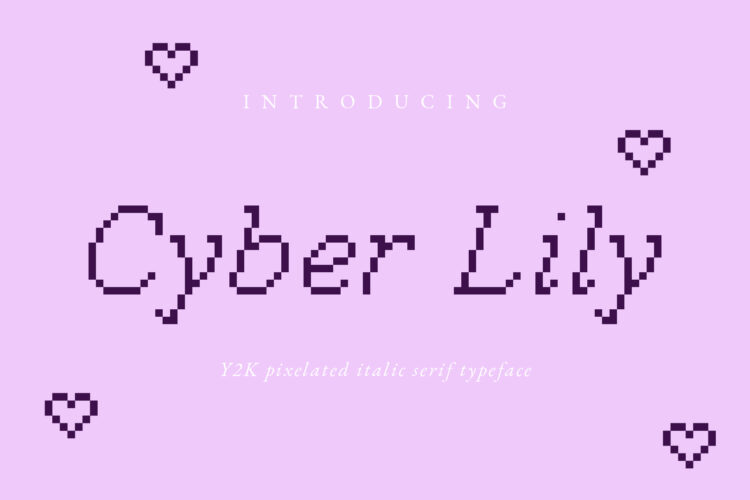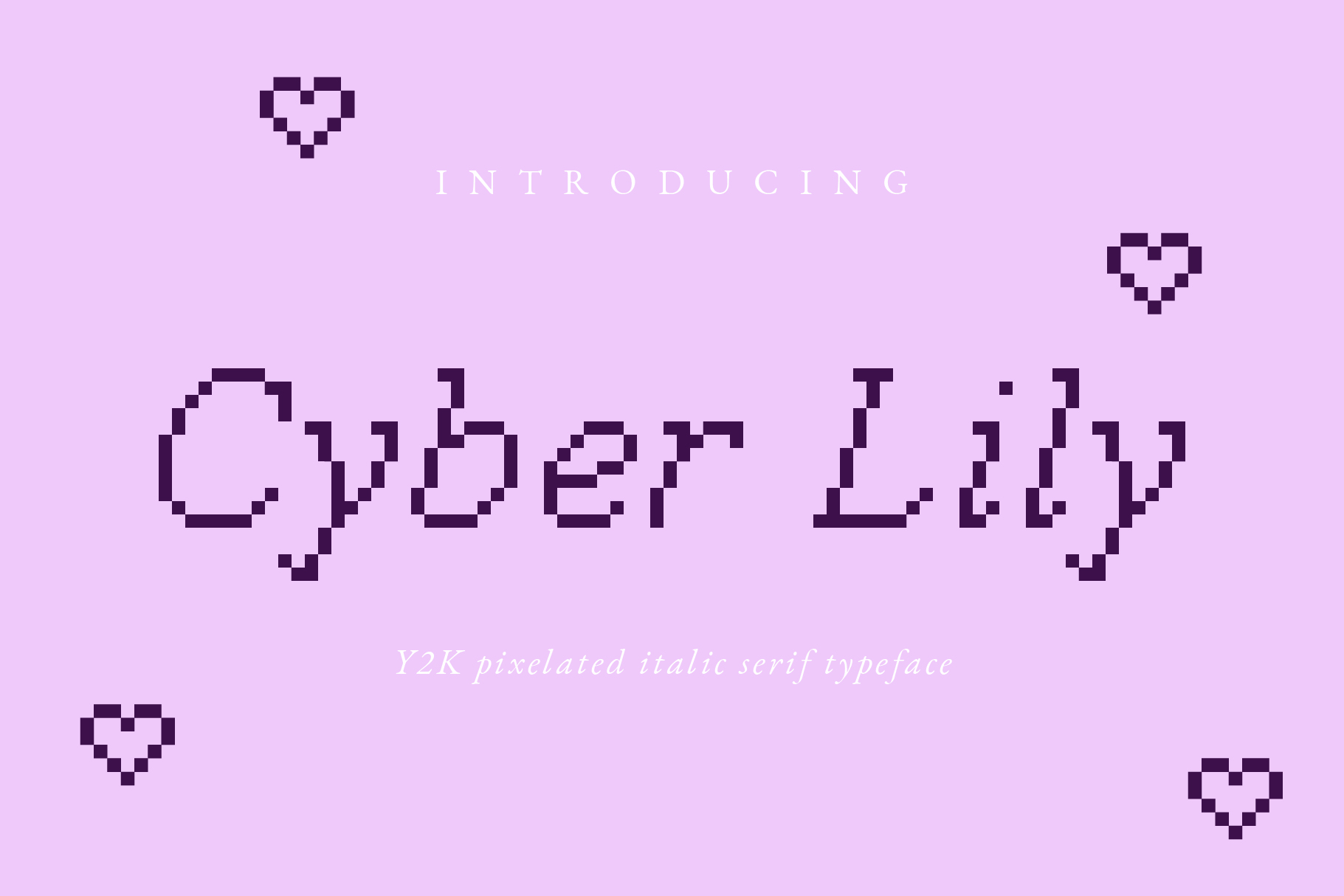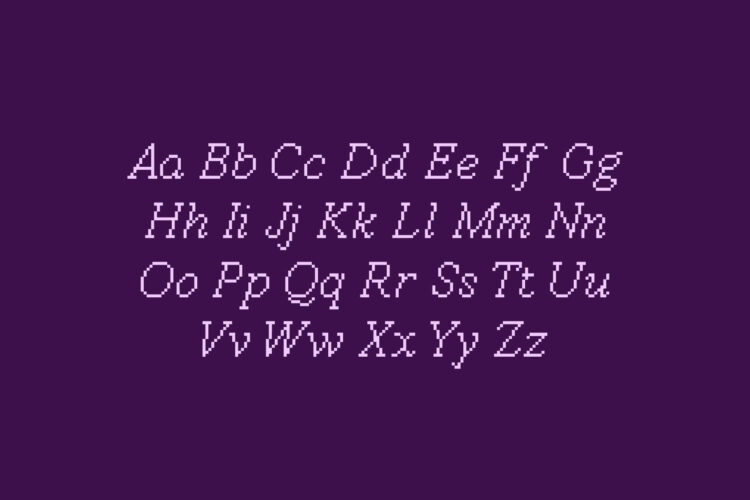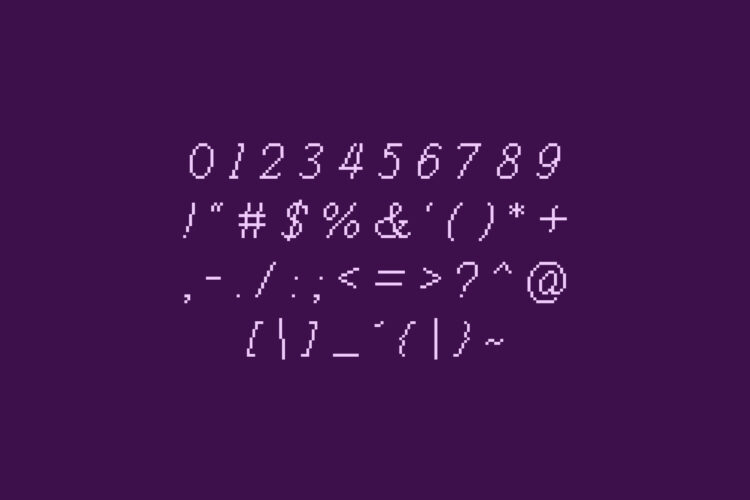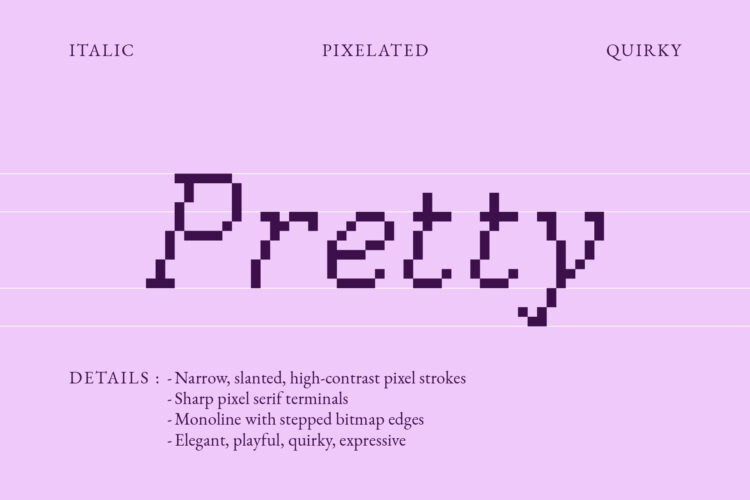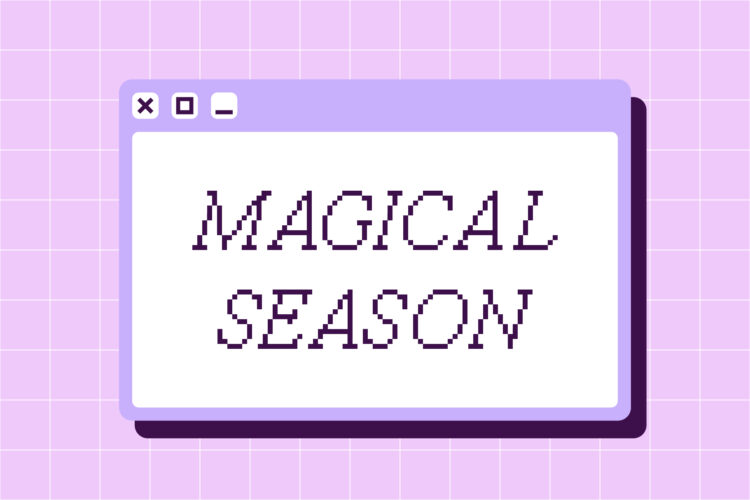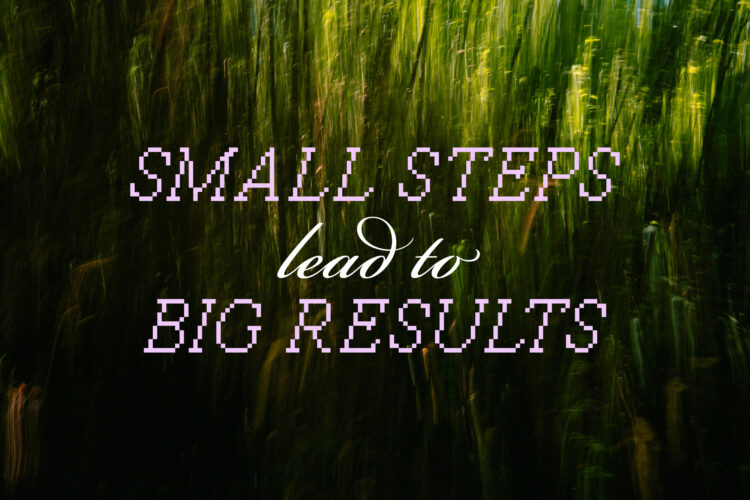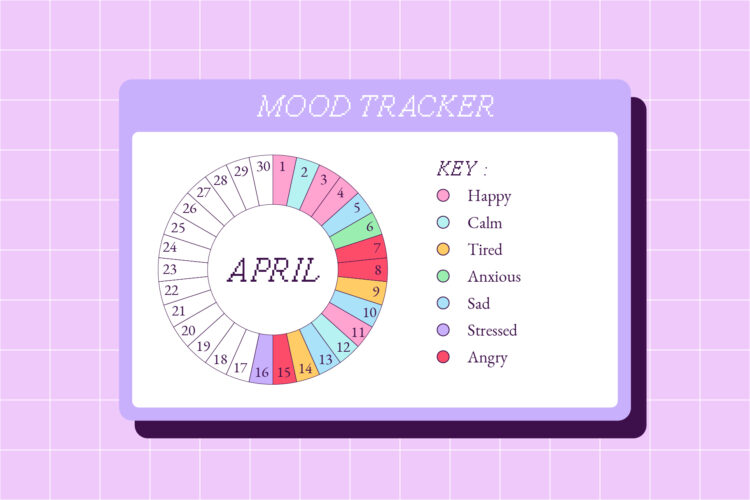
Cyber Lily
Cyber Lily is a stylish Y2K pixel italic font made to bring a cool, futuristic touch to your creative projects. With its retro digital aesthetic and bold personality, this font is perfect for branding, posters, packaging, social media, merchandise, gaming visuals, and more.
Designed to make your work look more unique, edgy, and eye-catching.
Add a nostalgic cyber vibe to your designs with Cyber Lily.